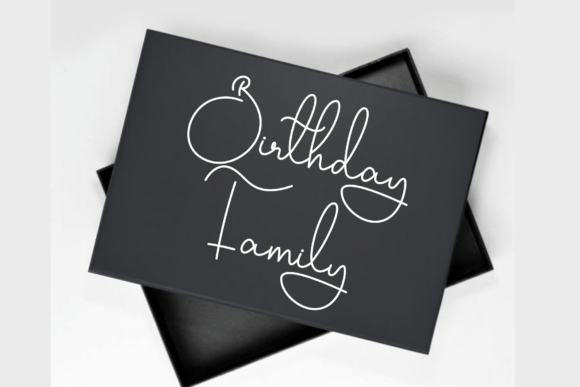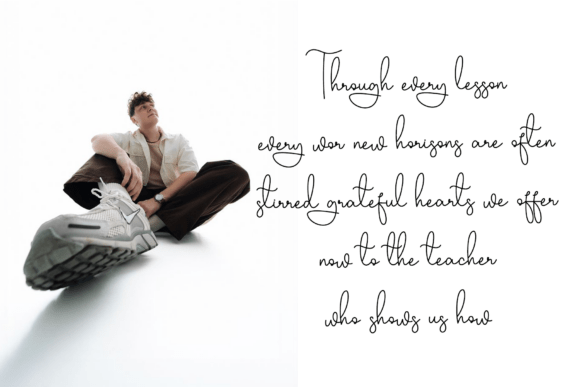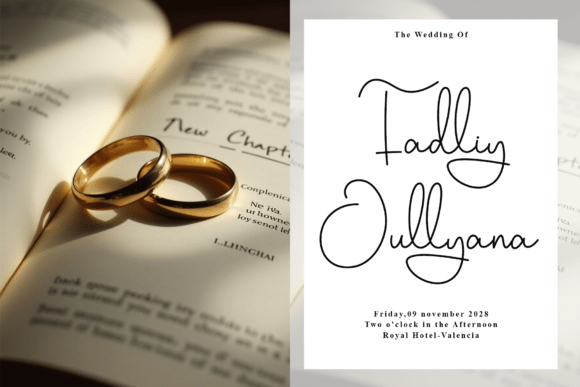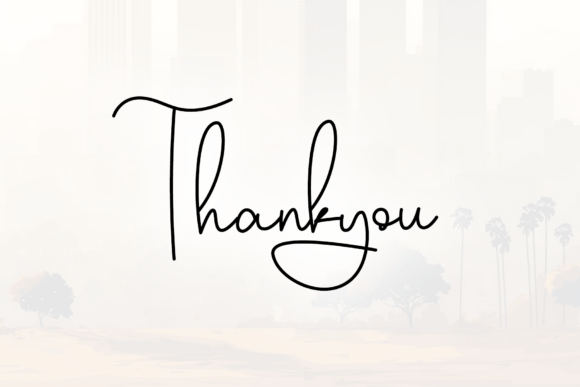
Introduction to Mellow Daily Font
Have you ever stared at a blank canvas, trying to come up with the perfect design concept for your creative project? The cursor blinks, and your mind goes blank. But then, it hits you – a spark of inspiration that sets your imagination ablaze. For designers, this moment is pure magic. It’s the moment when a font, a color, or a texture comes together to bring your vision to life. And, for those who have experienced it, they’ll agree that the right font can make all the difference.
Enter the Mellow Daily Font – a beautiful, handwritten font that’s about to become your new best friend. With its unique touch and timeless charm, it’s the perfect choice for creating eye-catching logos, branding, and quotes that will leave a lasting impression. And the best part? You can download it for free, complete with a transparent background, making it a high-quality design resource that’s sure to elevate your creative projects.
Key Features of Mellow Daily Font
- High-quality design: The Mellow Daily Font is a premium design resource that offers a unique and stylish look for any creative project.
- Unique characteristics: The Mellow Daily Font features a distinctive, modern design with subtle nuances that set it apart from other fonts in its class.
Honest Review: Mellow Daily Font
As a designer, I’m always on the lookout for high-quality design resources that can elevate my creative projects. The Mellow Daily Font caught my attention with its clean and modern aesthetic, making it a great addition to any design project.
What works well: ✨ The font is highly versatile and can be used for a variety of purposes, from headings to body text. It’s also available for free download, which is a major plus. The transparent background option is a nice touch, allowing for seamless integration with any design.
Here are some of the key features that make the Mellow Daily Font stand out:
- High-quality design that’s perfect for modern creative projects
- Highly versatile and can be used for a variety of purposes
One potential limitation: ⚠️ The font may not be suitable for extremely large or complex designs, as it can become difficult to read at smaller sizes.
Overall, I’m impressed with the Mellow Daily Font. Its clean design, versatility, and free download make it a valuable addition to any designer’s toolkit.
Getting the Most Out of the Mellow Daily Font
For the best results, use the Mellow Daily Font in combination with other high-quality design resources, such as images and graphics. Experiment with different font sizes, colors, and styles to find the perfect balance for your creative project.
The Mellow Daily Font is suitable for various creative projects, including blog posts, social media graphics, and marketing materials. Its high-quality design and transparent background make it a great choice for designers and non-designers alike.